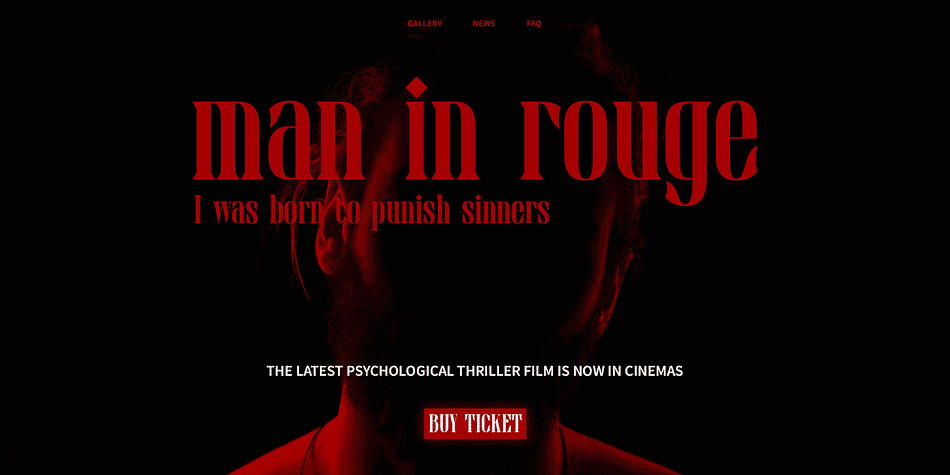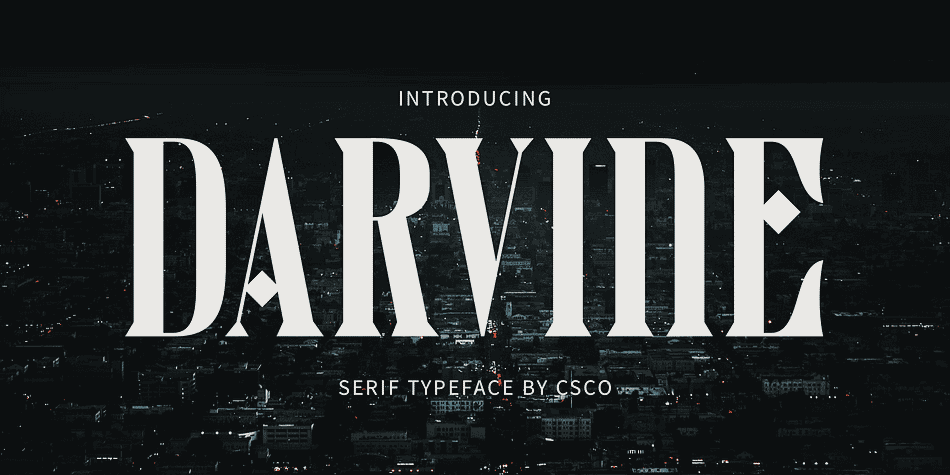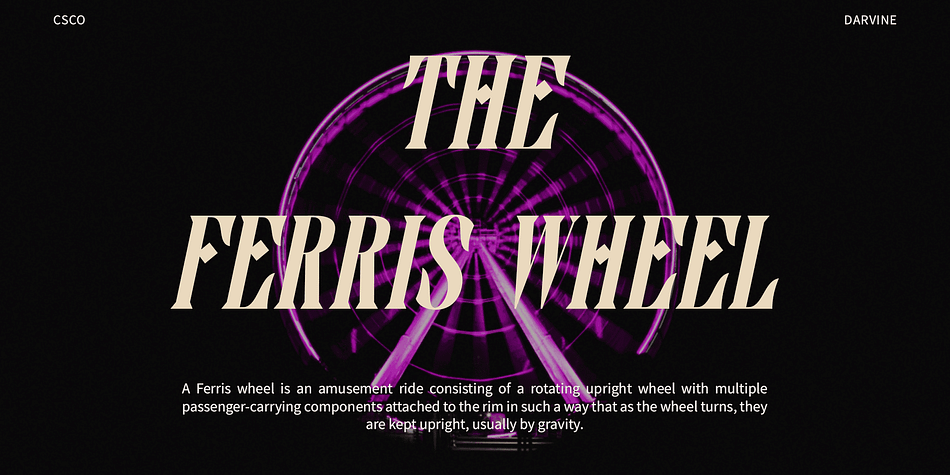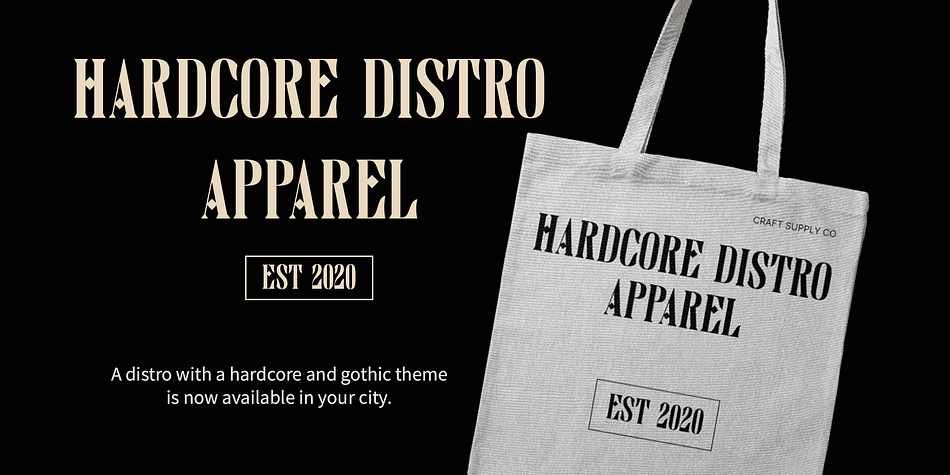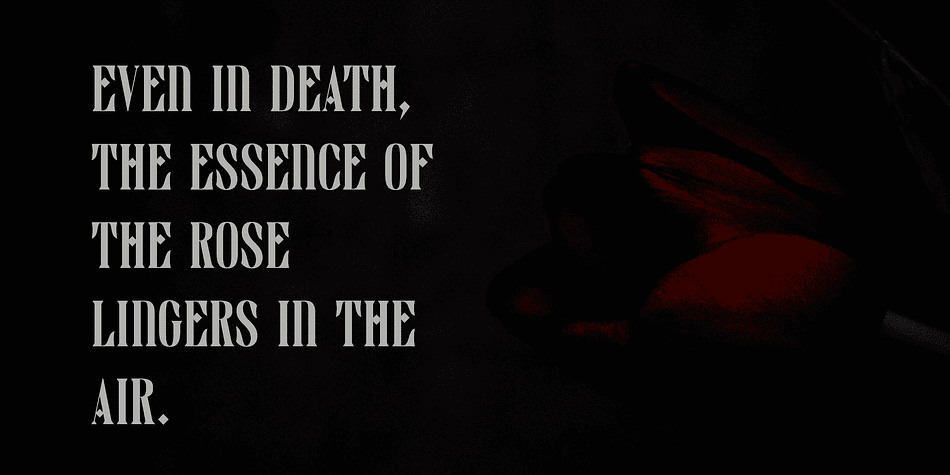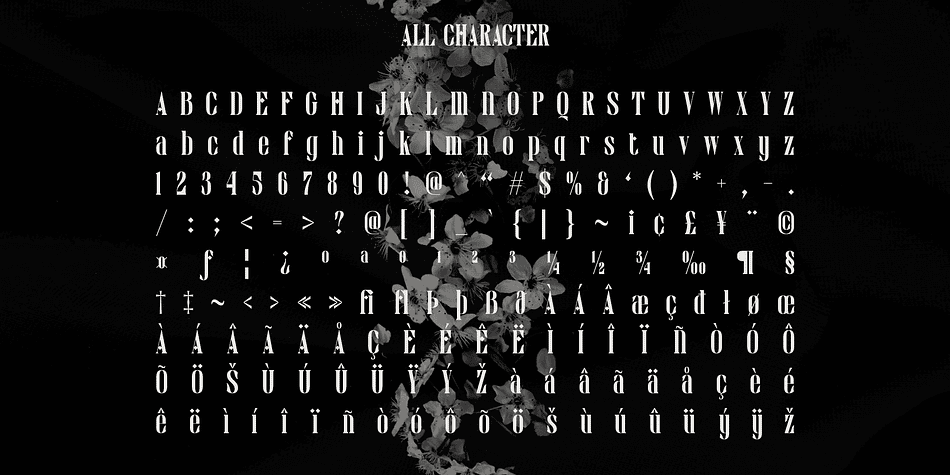
Darvine
Darvine is a display serif font family. This typeface has two styles and was published by Craft Supply Co.
Darvine Typeface: Elevate Your Display Typography
Sleek and Contemporary Design
Darvine presents a tall serif typeface with a sleek and contemporary aesthetic. Its modern shape adds a touch of sophistication to any display project.
Perfect for Display Purposes
Tailored for display use, Darvine shines in various contexts, from headlines to branding. Its tall stature and refined design make it ideal for grabbing attention and conveying elegance.
Versatile Application
Beyond its captivating appearance, Darvine offers versatility in any application. Whether used in digital or print media, its contemporary serif style lends a sense of refinement and professionalism.